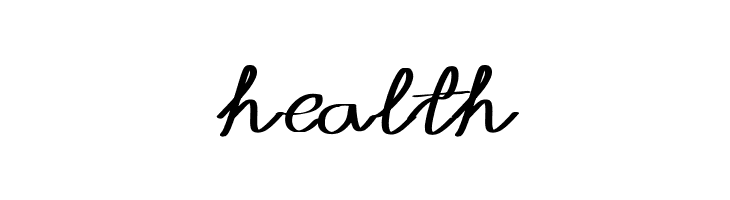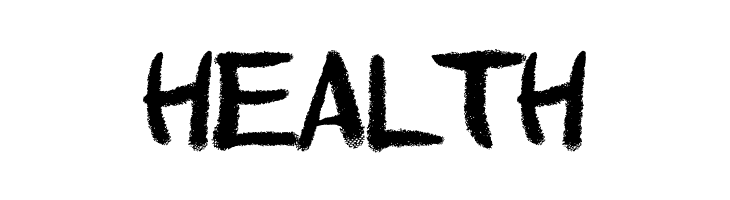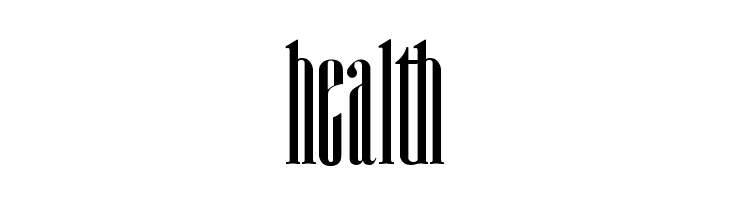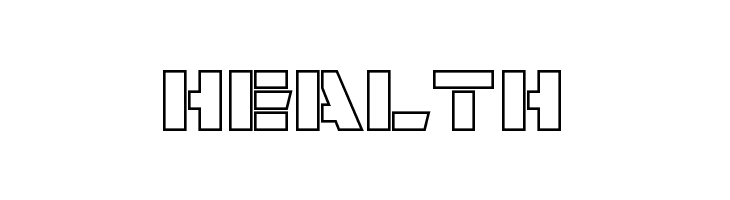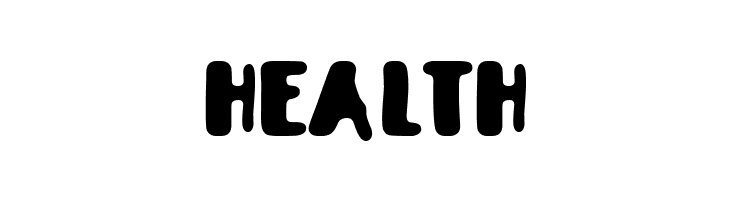
A lively, cursive font with interconnected letters and medium contrast, perfect for elegant projects.
An ultra-condensed, high-contrast font with a modern, dramatic style.
A modern, rounded font with a playful and geometric style.
A bold, textured handwritten font with a playful and dynamic style.
A flowing, cursive font with a handwritten, elegant style.
A bold, flowing script font with dynamic, interconnected strokes.
A bold, rounded font with a playful, retro vibe.
A geometric, hollow font with a modern and futuristic style.